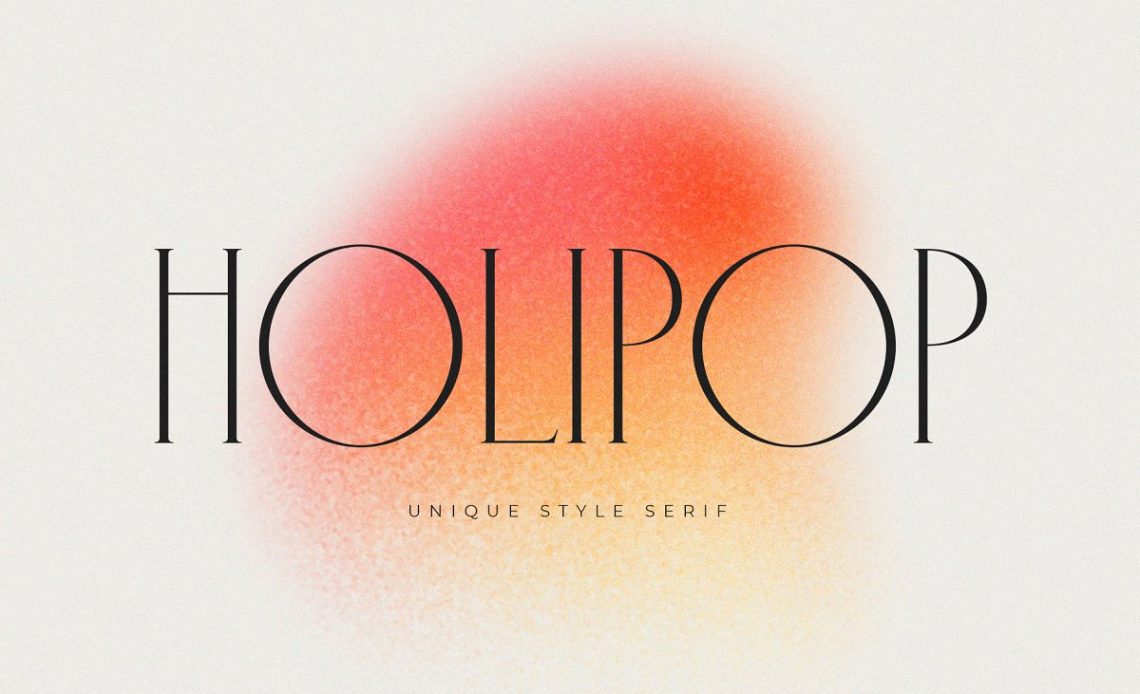
Introducing Holipop, the ultimate modern serif font that will take your designs to the next level. Created by the talented Ahmad Sidiq, this typeface is the perfect choice for those who want to make a lasting impression with their projects.
With its clean lines and smooth curves, Holipop adds a touch of elegance and sophistication to any design. Whether you're working on headings, logos, branding, magazines, product packaging, or invitations, this font will elevate your creations and make them truly stand out.
But what sets Holipop apart from other serif fonts? Its versatility and adaptability. This font is not only visually stunning, but it also offers a wide range of styles and variations to suit any project. From bold and impactful to delicate and refined, Holipop has it all.
But it's not just about the technical aspects of Holipop. This font is designed to evoke emotions and create a connection with your audience. Its modern and elegant design will captivate viewers and leave a lasting impression. Whether you're aiming for a sleek and professional look or a trendy and fashionable vibe, Holipop has got you covered.